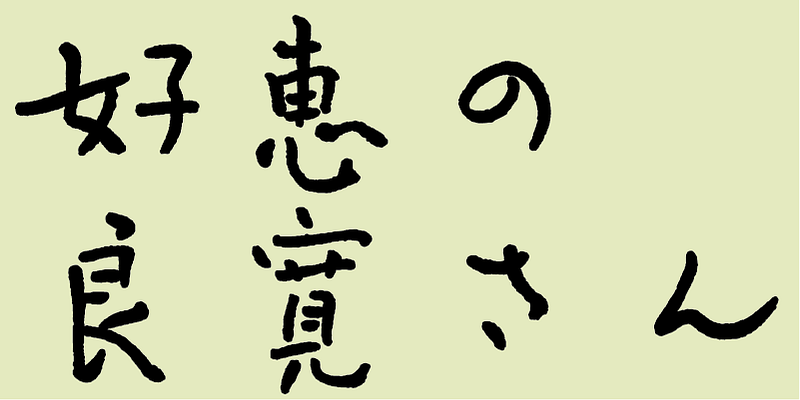
AB Yoshienoryokan B Font Free Download is a bold, handwritten-style typeface designed with a friendly and playful touch. Building on the approachable charm of its medium-weight counterpart, the B (Bold) version adds extra weight and presence—making it perfect for children’s books, educational signage, playful branding, and any design that needs to stand out while remaining warm and accessible.
With its rounded strokes and natural handwritten flow, AB Yoshienoryokan B evokes the feel of early childhood writing practice, making it ideal for kindergarten and preschool-related content. The font supports both Japanese and Latin characters, offering excellent usability for bilingual designs and multicultural projects.